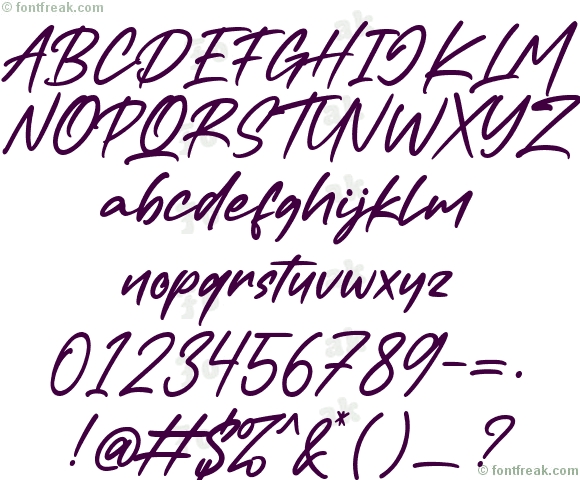
Dark Twenty
Dark Twenty is a captivating display font designed by Abas Creative, released in 2020 under a freeware license. This font embodies a modern aesthetic with its bold, yet elegant strokes, making it a perfect choice for various creative projects. As a display typeface, Dark Twenty features a unique blend of thick and thin strokes, providing a striking contrast that draws attention while maintaining readability. The letterforms exhibit generous spacing, allowing each character to breathe and stand out.
The visual characteristics of Dark Twenty include fluid curves and dramatic angles, creating a sense of movement and dynamism. Its decorative elements enhance its overall appeal, making it suitable for a range of applications. This font is particularly effective for wedding invitations, where its stylish flair can convey romance and elegance. Additionally, it works wonderfully for movie posters, allowing designers to create eye-catching titles that capture the essence of the film. Restaurant menus can also benefit from this font, giving a sophisticated touch that complements a fine dining experience. Content creators looking to enhance their social media graphics will find Dark Twenty an excellent choice for standout headlines and promotional materials.
What sets Dark Twenty apart is its ability to blend contemporary design with timeless elegance, making it a standout option for anyone looking to make a bold statement in their work. Its versatility and aesthetic appeal ensure that it will remain a favorite among designers for years to come.